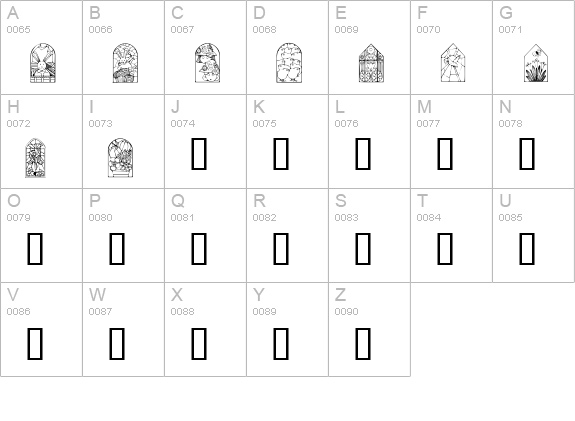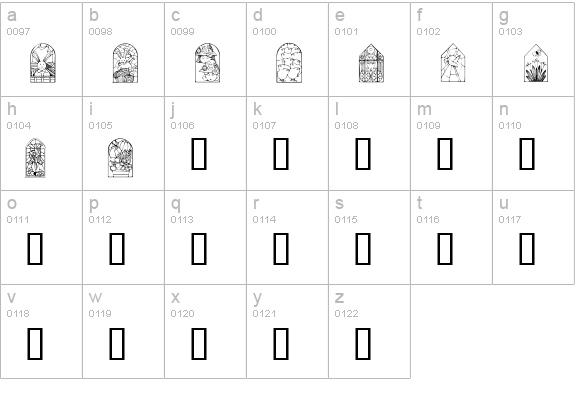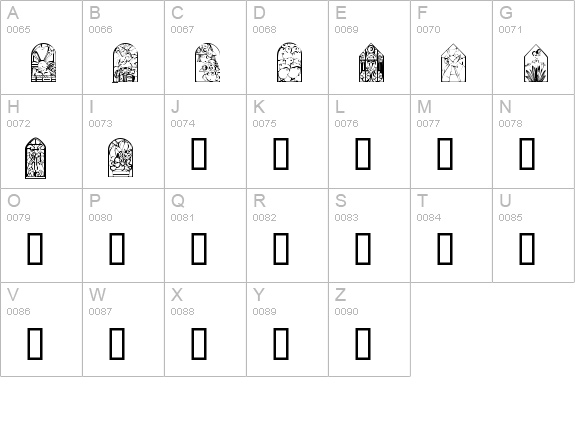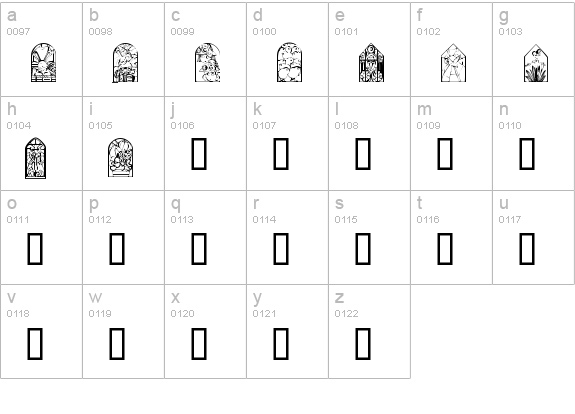
KR Easter Windows Font Details
The KR Easter Windows font is a whimsical and playful typeface perfect for adding a touch of fun to your design projects. Its unique and charming style is sure to make your text stand out. With a combination of rounded edges and intricate details, this font is ideal for creating eye-catching headlines, invitations, and more. Best of all, it is available for free download at FontsMarket.com, making it easily accessible for all your creative needs. Add a touch of sweetness to your designs with the delightful KR Easter Windows font today!